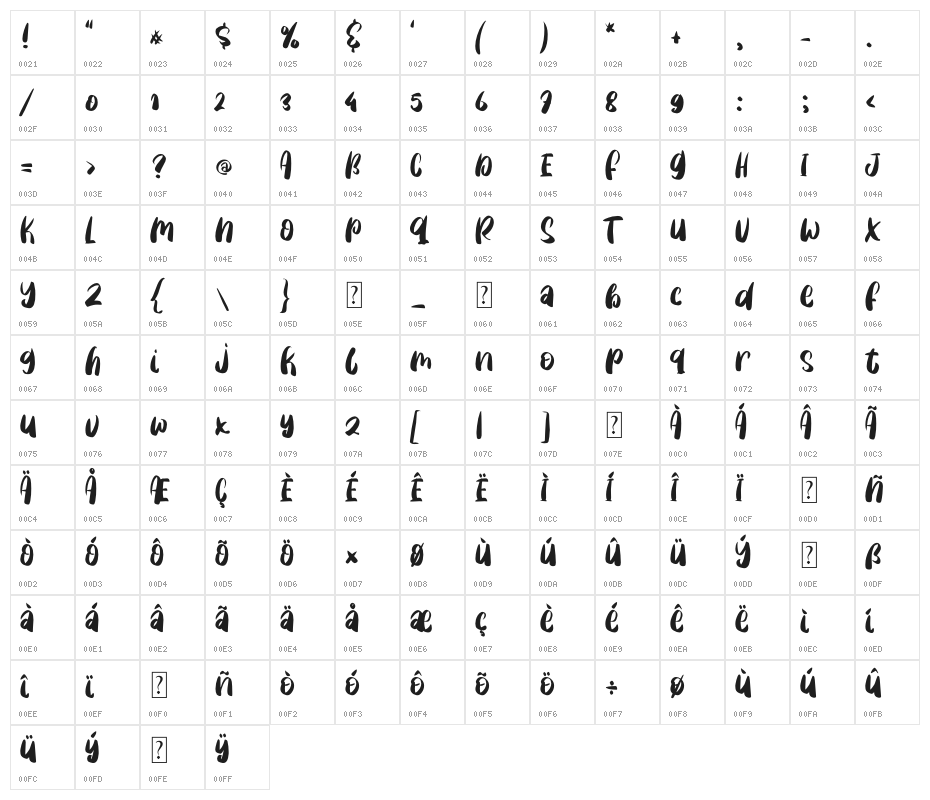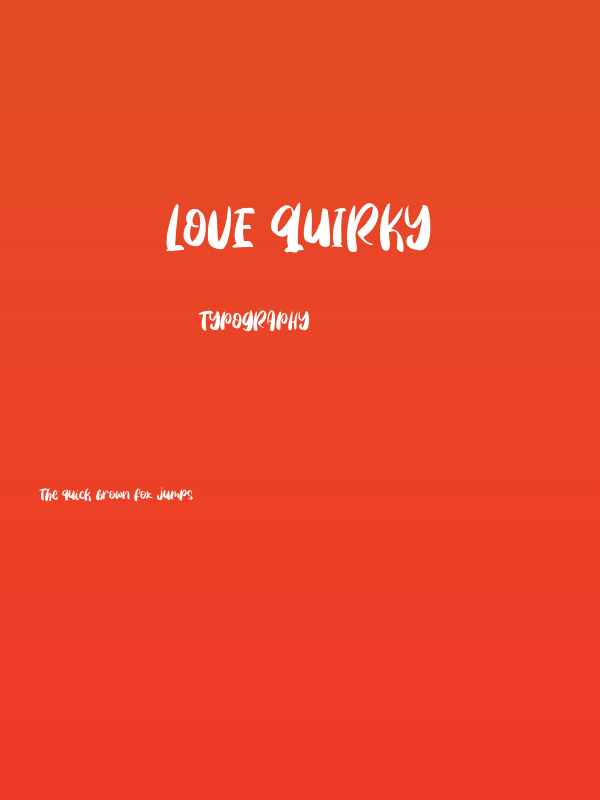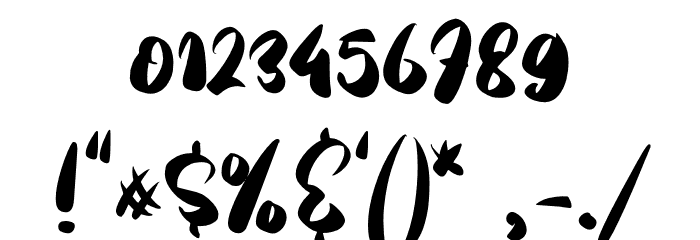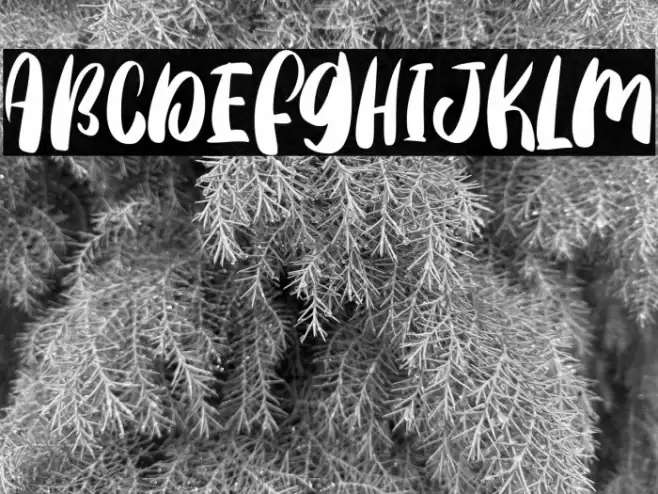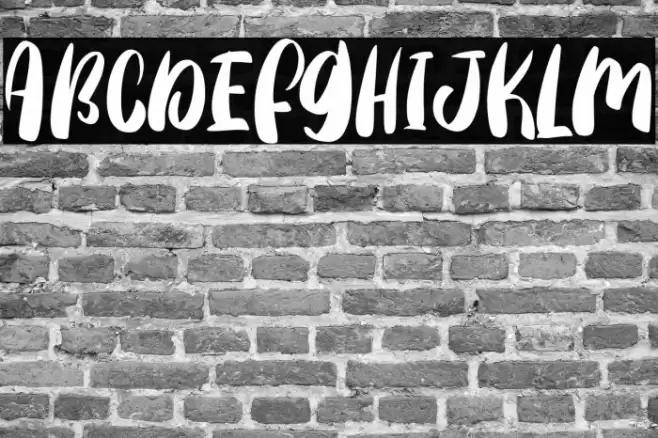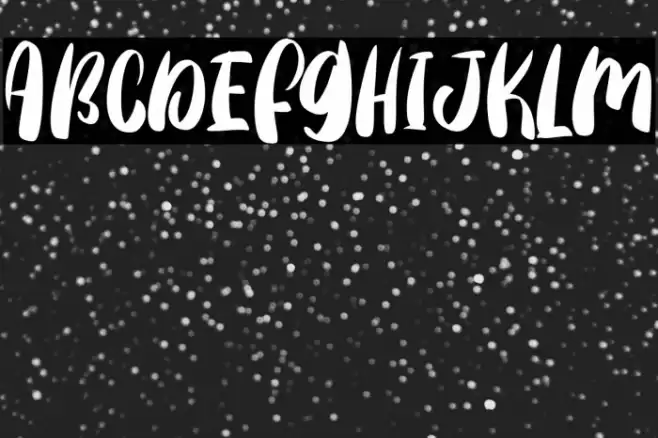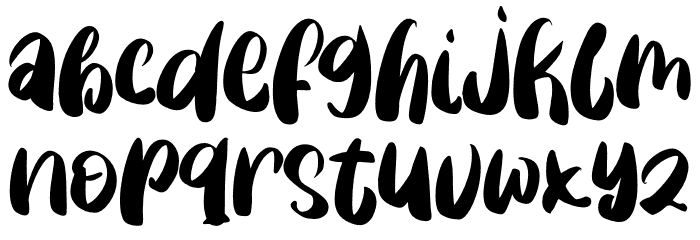
Love Quirky Font
This font exudes a playful and energetic vibe with its bold, brush-like strokes and whimsical curves. The letters are characterized by their thick, uneven lines, giving them a hand-drawn appearance that feels both casual and artistic. The uppercase and lowercase letters maintain a consistent style, with exaggerated loops and swirls that add a sense of movement and dynamism. The numbers and special characters follow the same lively design, ensuring a cohesive look across all elements. This font is perfect for projects that require a touch of creativity and fun, making it ideal for artistic designs, playful branding, and eye-catching headlines.
| Use Case | Headlines, Logos, Artistic designs |
| Proposed Projects | Ideal for creative projects, playful branding, artistic designs, and eye-catching headlines. |